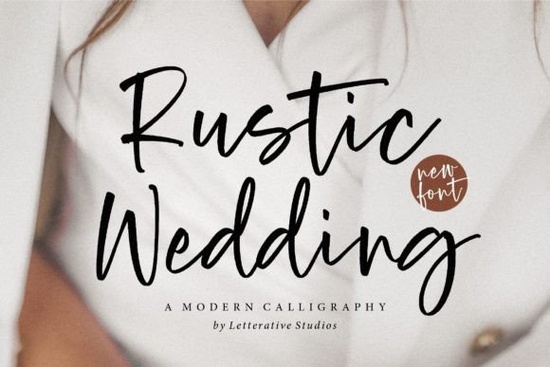
If you're looking for a modern calligraphy font that feels both rustic and elegant, Rustic Wedding Font might be exactly what you need. It's designed to work across a wide range of creative projects, from digital design to handmade crafts, without looking out of place. Whether you're a print-on-demand seller testing new product ideas or a hobbyist making greeting cards for friends, this font aims to be a dependable choice you can reach for again and again.
What kind of projects does a modern calligraphy font like this actually suit?
Modern calligraphy fonts have a hand-lettered feel that works well in both formal and casual contexts. Rustic Wedding Font fits into this category with its natural flow and slightly weathered charm. You can use it for:
- Greeting cards and invitations – especially for weddings, engagements, or anniversary events where a personal touch matters.
- Digital presentations and social media graphics – the font adds warmth without being too decorative to read on screen.
- Home decor printables – think quote prints, wall art, or table signs that need a soft, handwritten look.
- Product packaging and labels – small businesses often use calligraphy fonts to create a handmade, artisanal feel.
- Logos and branding elements – a single word in script can become a memorable mark if the letterforms are clean.
The font's versatility means you don't have to switch between multiple typefaces for different projects. That's one less thing to worry about when you're juggling deadlines or trying to keep your brand consistent across platforms.
How does Rustic Wedding compare to other script fonts available on Creative Fabrica?
Script fonts vary a lot in style, weight, and readability. Rustic Wedding leans toward the modern calligraphy side, which means it has a natural slant and varied stroke thickness. If you've tried other script fonts that felt too formal or too messy, this one strikes a middle ground.
Can you really use this font for print-on-demand and small business products?
Yes, and that's where Rustic Wedding Font shines. Print-on-demand sellers often need fonts that look good on mugs, t-shirts, tote bags, and phone cases. A modern calligraphy font works well because it feels personal and handmade, which is a popular aesthetic on platforms like Etsy and Amazon Merch.
Small business owners can also use it for:
- Branding materials like logos or quote cards.
- Product inserts and thank-you notes.
- Social media posts that need a consistent visual style.
- Seasonal or event-specific packaging that benefits from a hand-lettered look.
The key is to test the font at different sizes to make sure the thinner strokes remain visible when printed small, and that the overall look matches your brand's tone. A quick mockup in Canva or Photoshop can save you from ordering samples that don't quite work.
What should you look for when choosing a wedding or event font?
Not all calligraphy fonts are created equal. Here are a few things to consider before you buy:
- Readability – Can you read the font easily at different sizes? Test it in a sentence, not just in a single word.
- Character set – Does it include uppercase, lowercase, numbers, and common punctuation? Some fonts skip basic glyphs.
- License – If you're selling products, check the commercial license terms. Creative Fabrica usually offers clear licensing for print-on-demand use.
- Pairs well with other fonts – A good calligraphy font should work alongside a simple sans-serif or serif font for contrast.
- Context fit – Does the font actually match the tone of your event or brand? A rustic style works for outdoor weddings but might feel out of place in a corporate setting.
Rustic Wedding Font checks most of these boxes, but it's always a good idea to preview it with your own text before purchasing. Most font marketplaces let you type a sample phrase, so take advantage of that feature.
Practical tip before you start designing: Download the font and try it in a few project mockups first. Write out a full sentence not just a single word to see how the letters connect. If you're using it for a product listing or invitation, test it at actual print size to make sure the details hold up. A quick test like this takes five minutes and can save you from ordering samples that don't match your vision. That way, you'll know for sure if Rustic Wedding Font is the right fit for your next project.